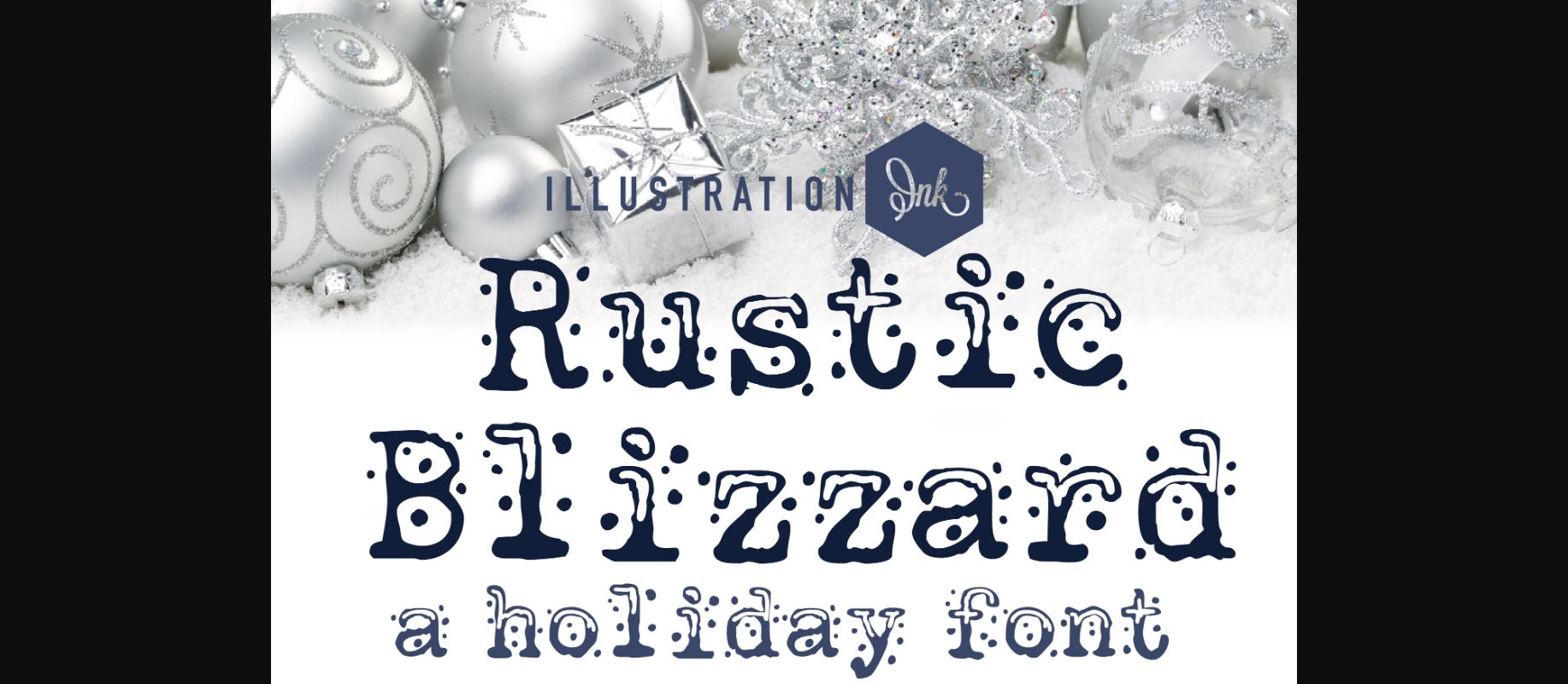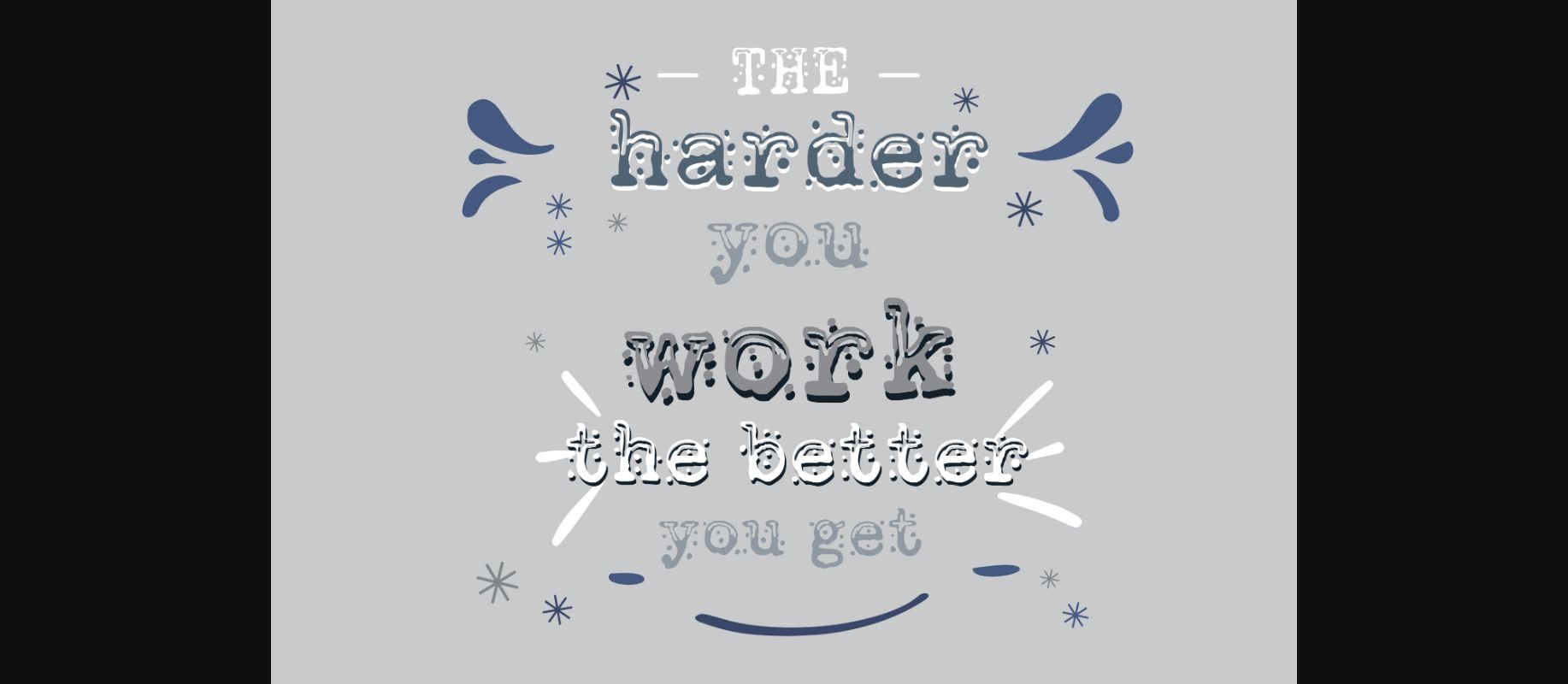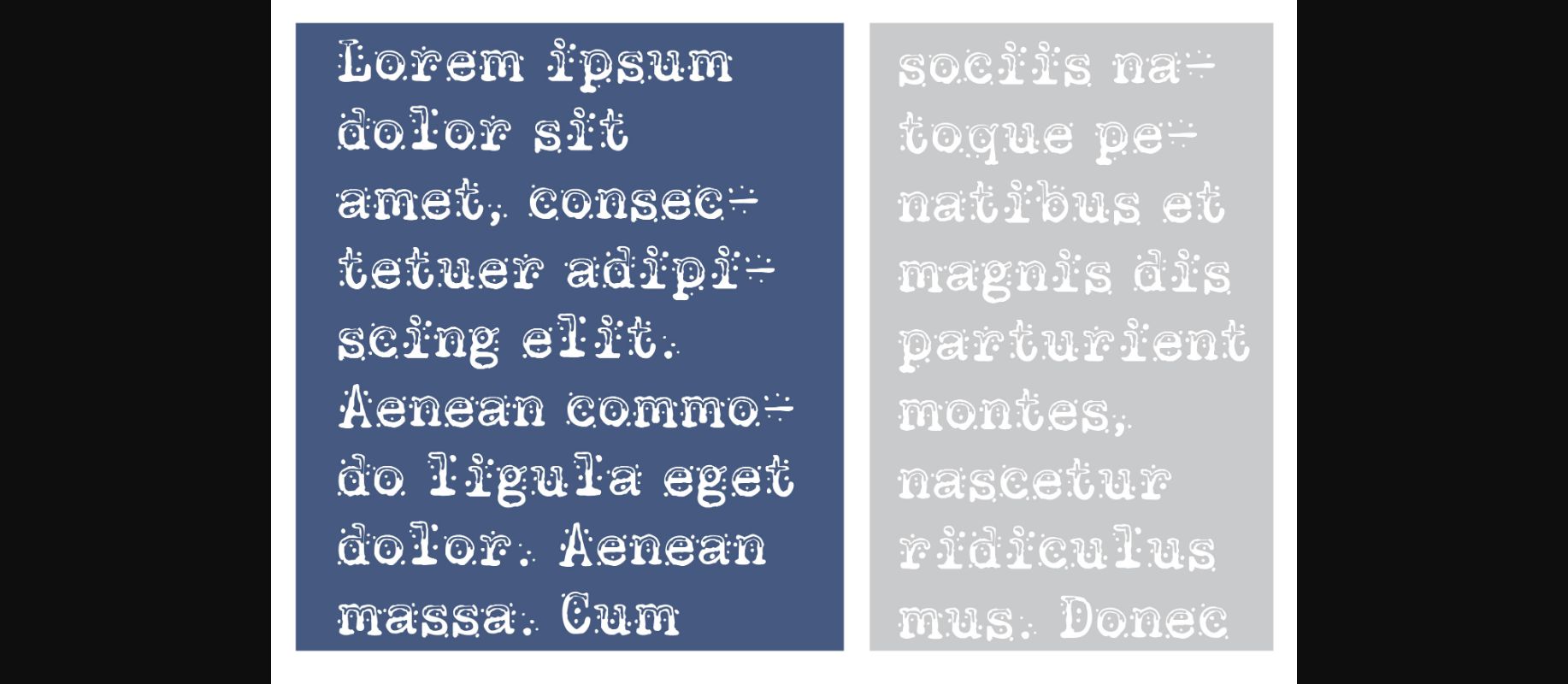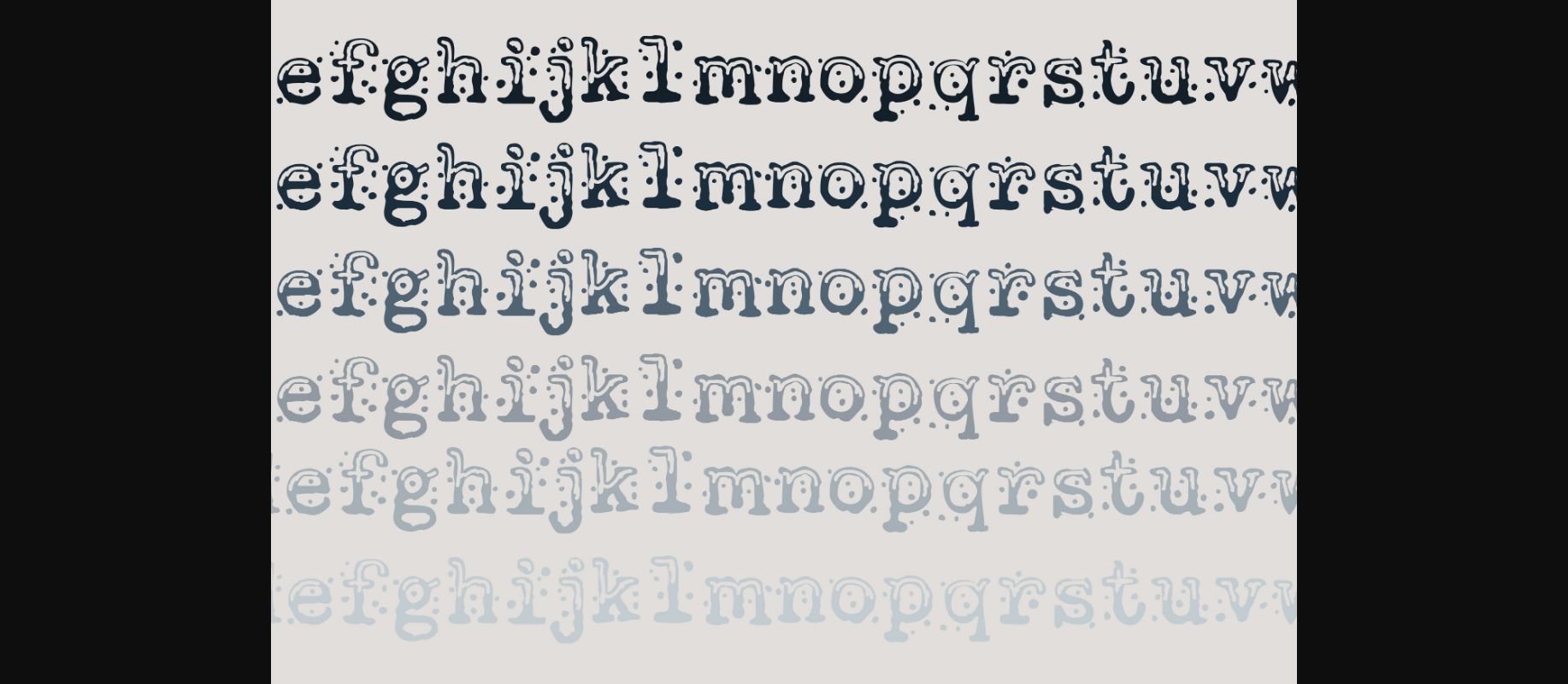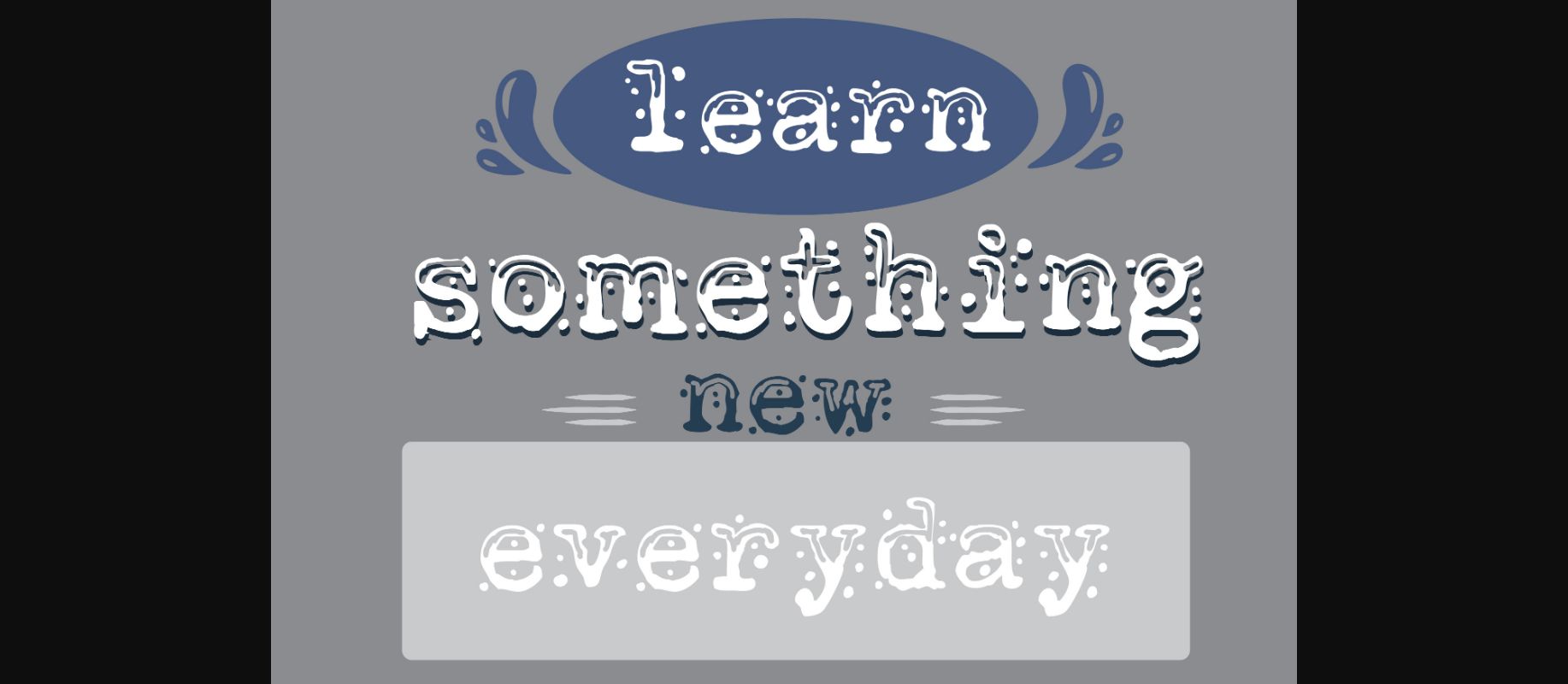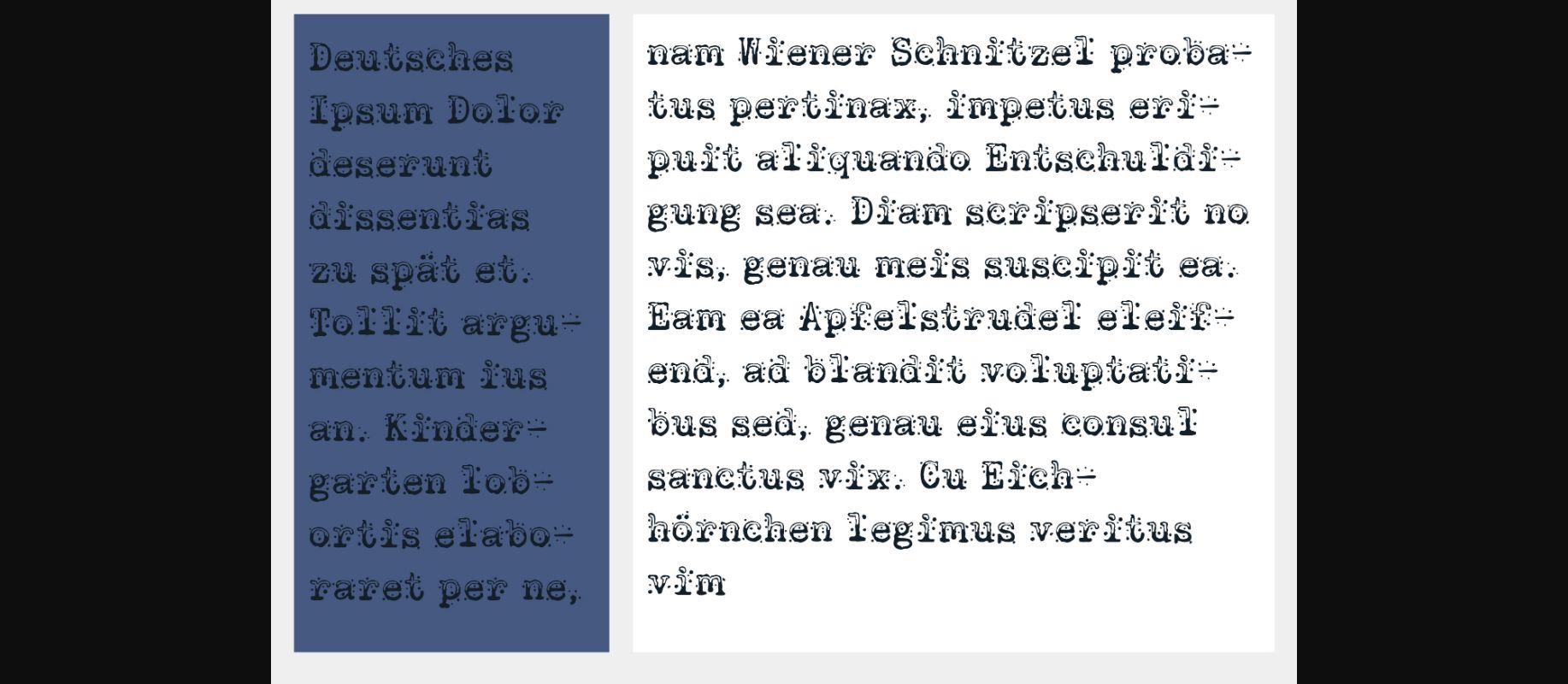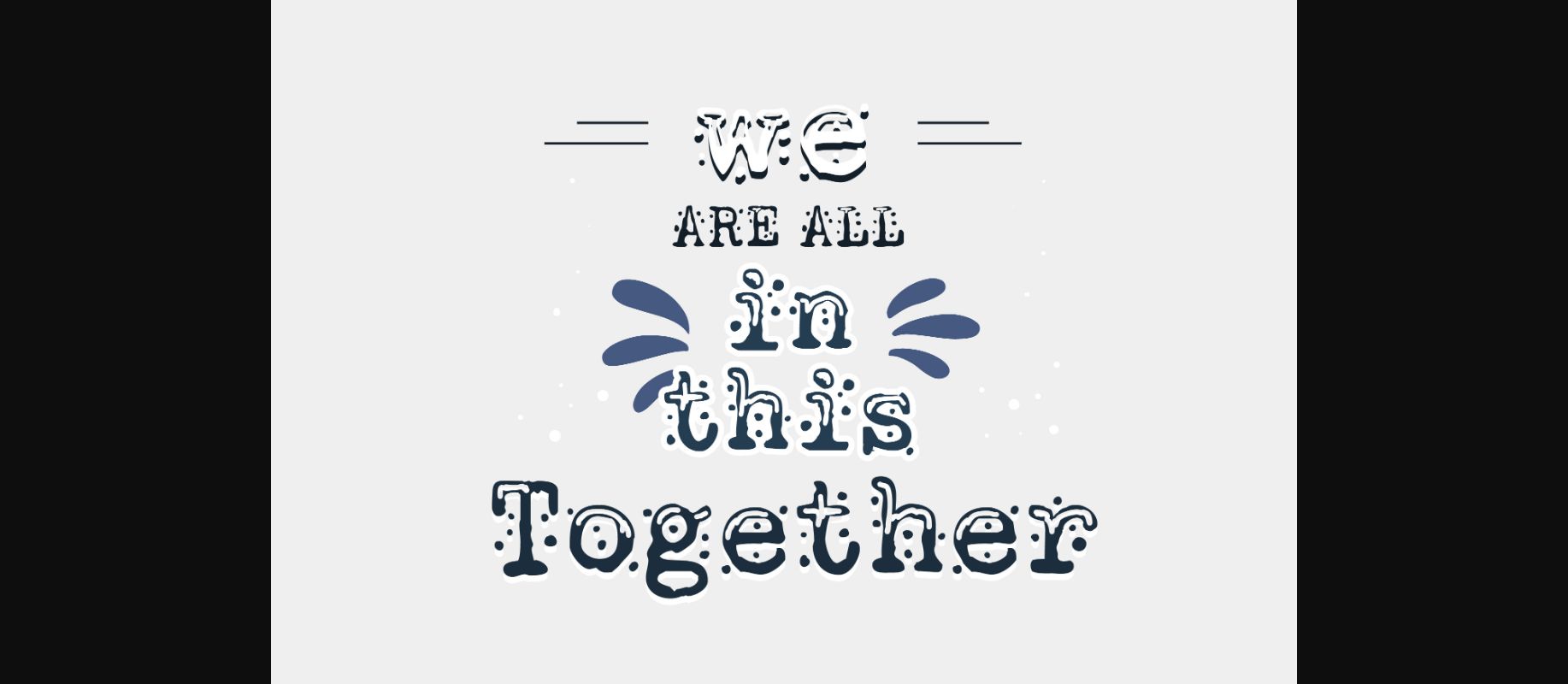
About Rustic Blizzard Font
Meet Rustic Blizzard, a hand-crafted font that brings a touch of nostalgia with its old-school, courier-like serif. Each character is delicately covered in a snowy embrace, adding a rustic and cozy vibe to your projects. Perfect for creating a warm and vintage feel, Rustic Blizzard is an inviting choice for a variety of design applications. Embrace the charm of winter and the simplicity of this font for a unique and timeless appeal.